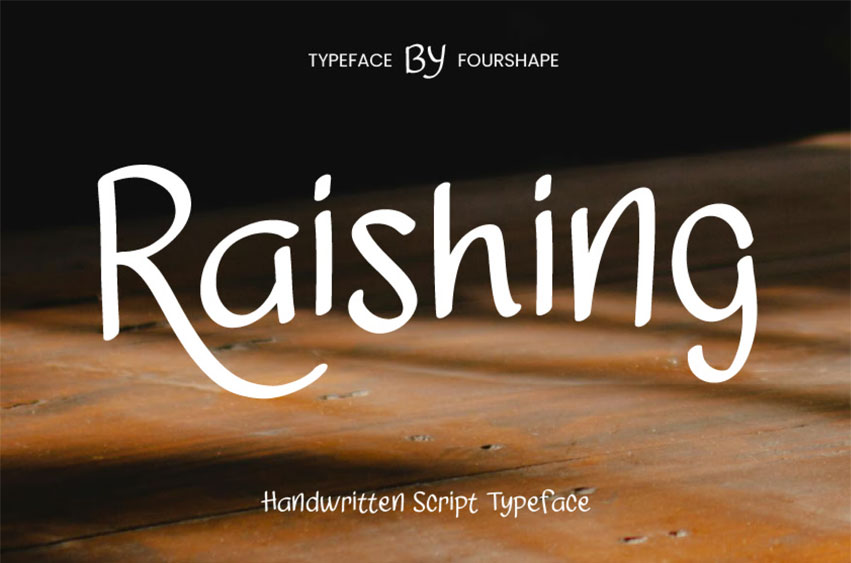
Raishing Font Typeface Font Charming handwritten script font that combines elegance with a touch of playfulness. Its smooth curves and unique letter connections create a sense of warmth and authenticity, making it perfect for designs that aim to feel personal and creative.